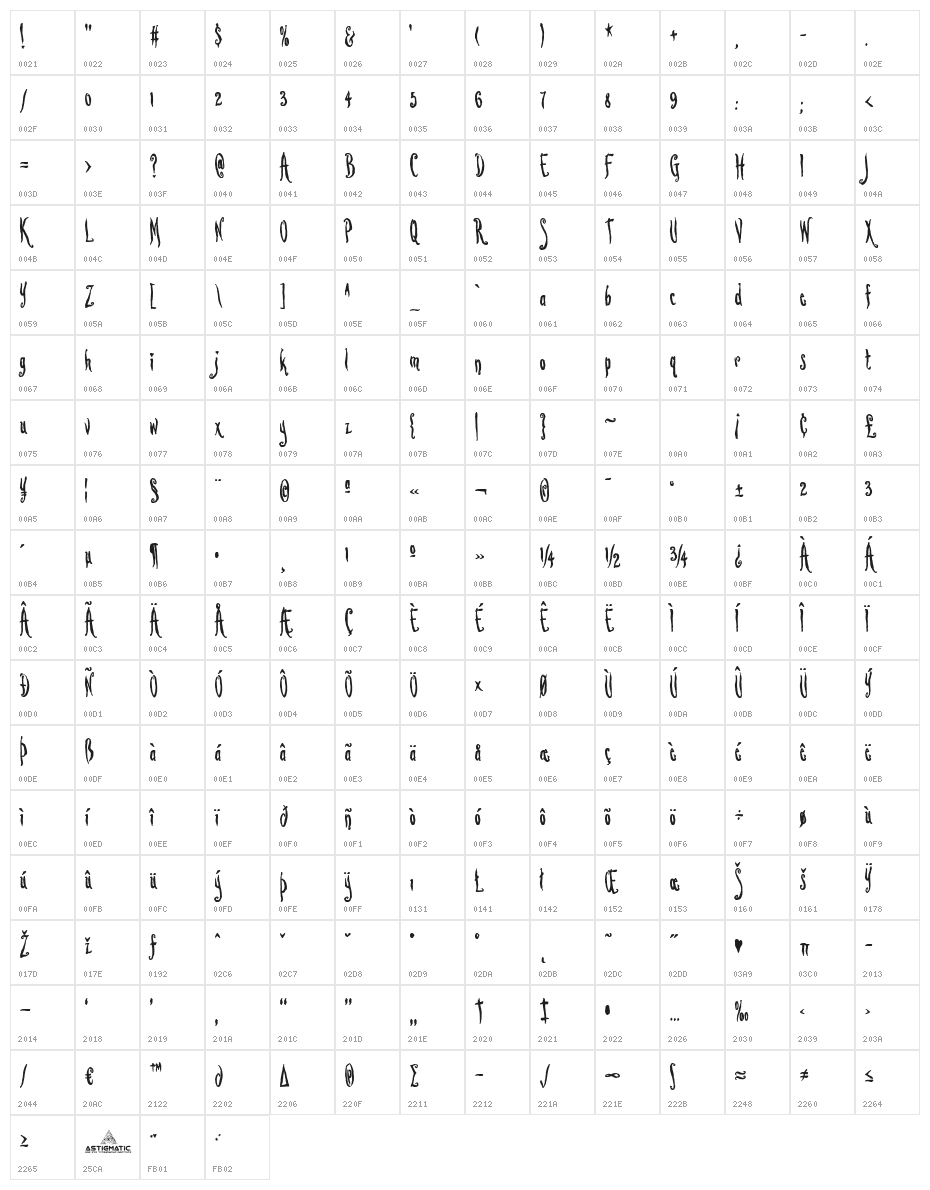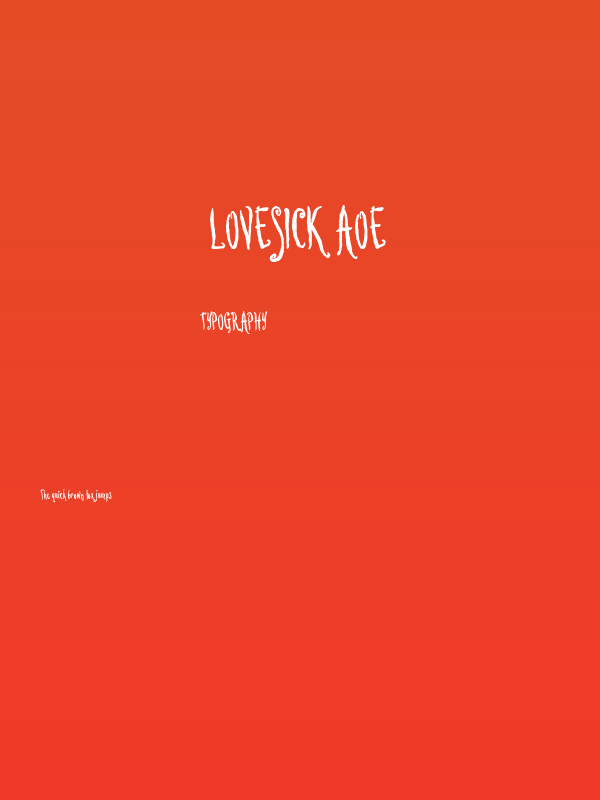
Lovesick AOE Font
Lovesick AOE Description
This font features a whimsical and playful design with a hand-drawn aesthetic. The characters are irregular and slightly distorted, giving them a unique and artistic flair. The strokes are uneven, with varying thickness that adds to the font's charm. The uppercase and lowercase letters maintain a consistent style, while the numbers and special characters are designed to match the overall quirky appearance. This font is perfect for creative projects that require a touch of personality and individuality.
| Use Case | Logos, Posters, Creative projects |
| Proposed Projects | Ideal for greeting cards, children's books, playful branding, and artistic posters. |